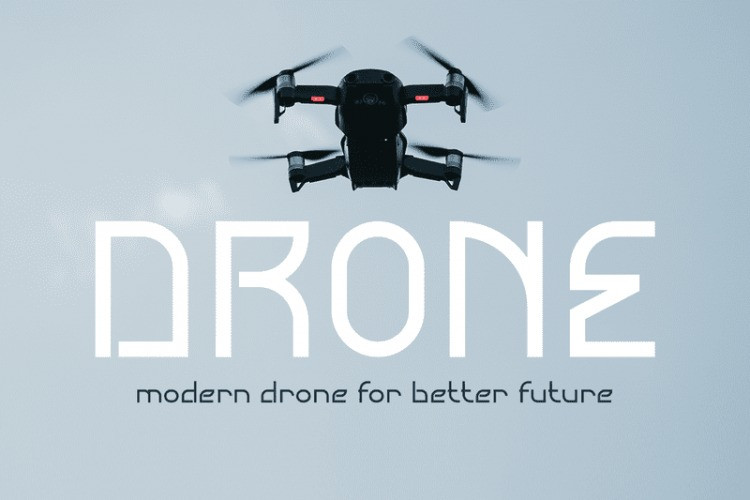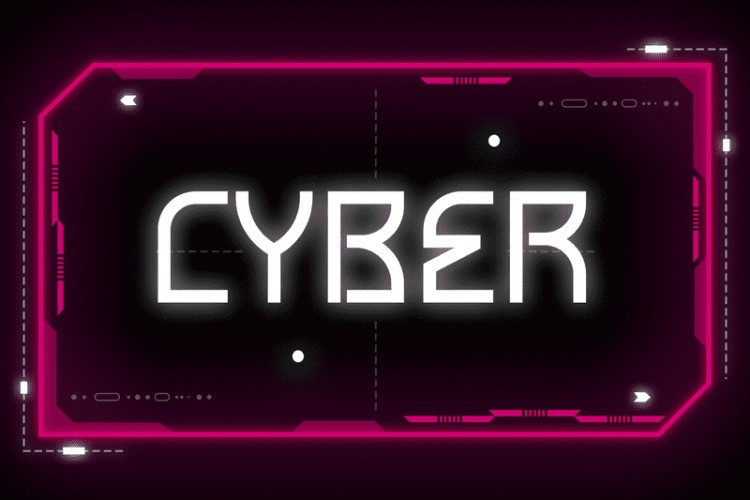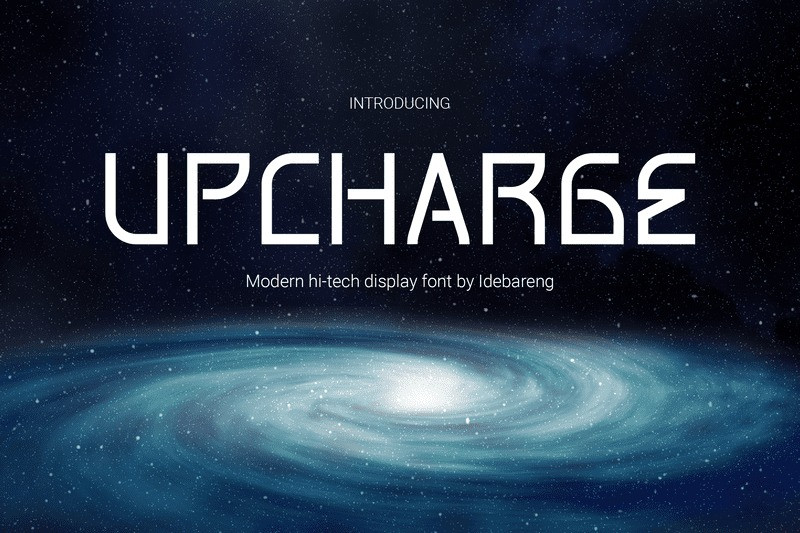
Upcharge Font
Upcharge Font, a modern and hi-tech display font designed for digital media, film, and website projects. With its futuristic and sleek design, Upcharge is perfect for capturing attention and making a bold statement in any project.
This unique font is ideal for those looking to create a cutting-edge and technologically advanced aesthetic. Whether you’re designing a movie poster, creating content for social media, or developing a website, Upcharge is sure to give your project the modern and edgy look it needs.
As a display font, Upcharge is designed to be used in larger sizes, making it perfect for headlines, titles, and logos. Its clean and precise lines lend themselves well to a variety of projects, from music videos to technology-based marketing campaigns.
So if you’re looking for a font that embodies innovation and progress, Upcharge is a perfect choice. With its futuristic style and versatile applications, it’s sure to elevate your designs and capture the attention of your audience.